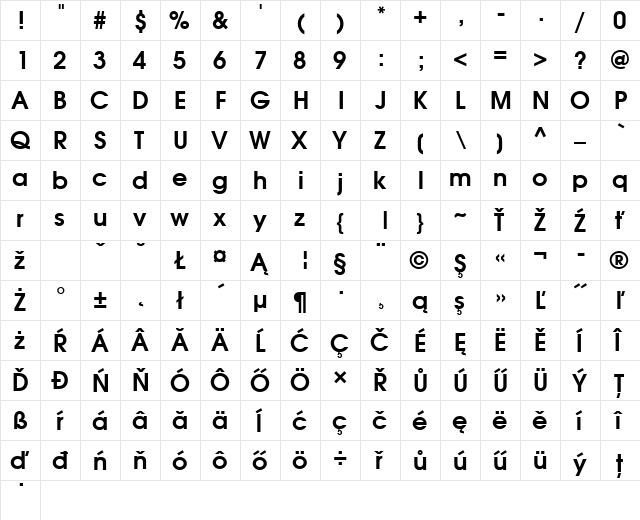
AvantGarGotItcLEE Bold Font Preview
AvantGarGotItcLEE Bold
Design Context for AvantGarGotItcLEE Typeface
AvantGarGotItcLEE offers clean, dependable letterforms without strong stylistic allegiance, making it a practical choice for designers who need flexibility. The heavy weight commands attention and anchors typographic hierarchies.